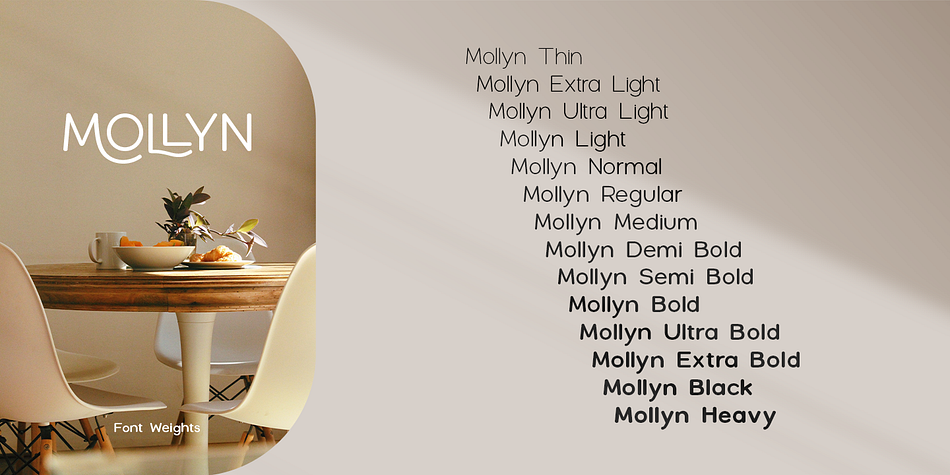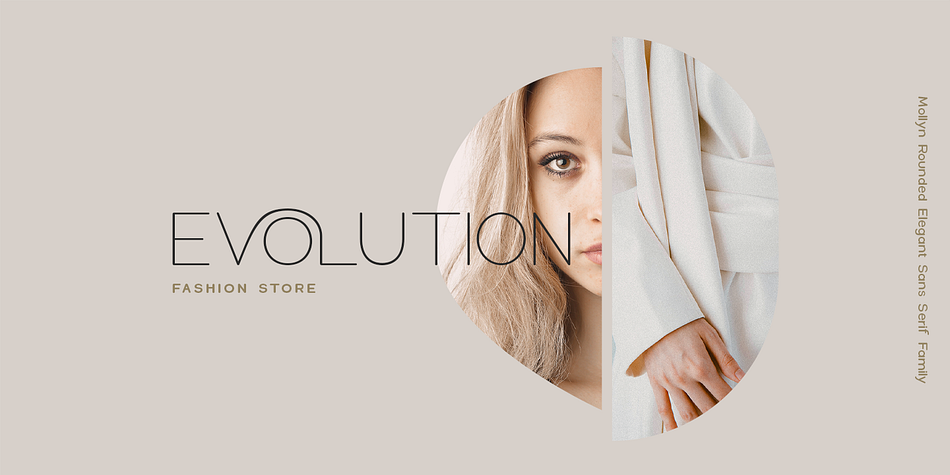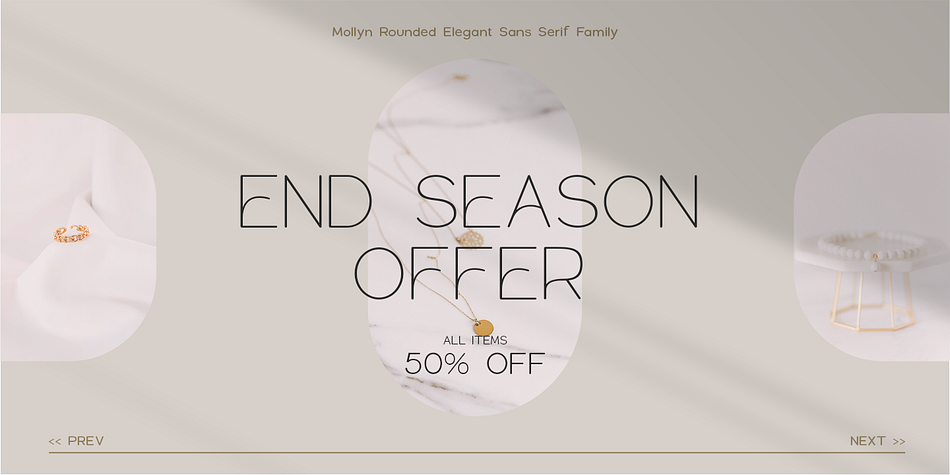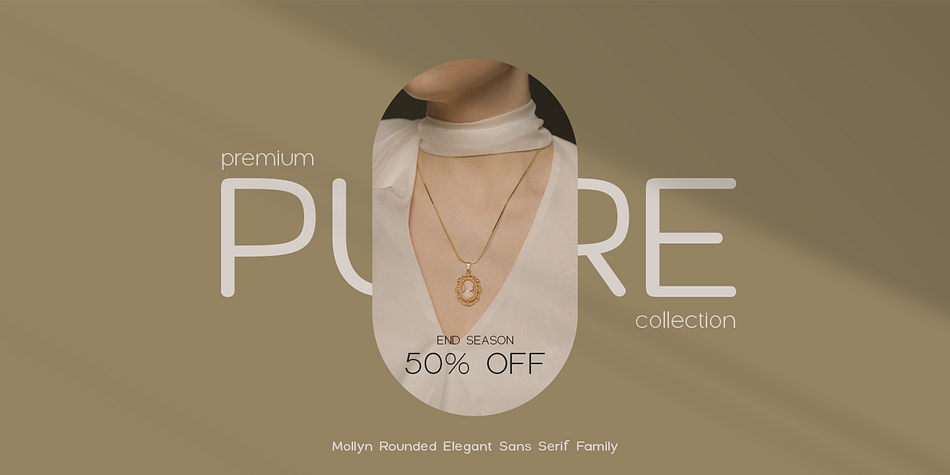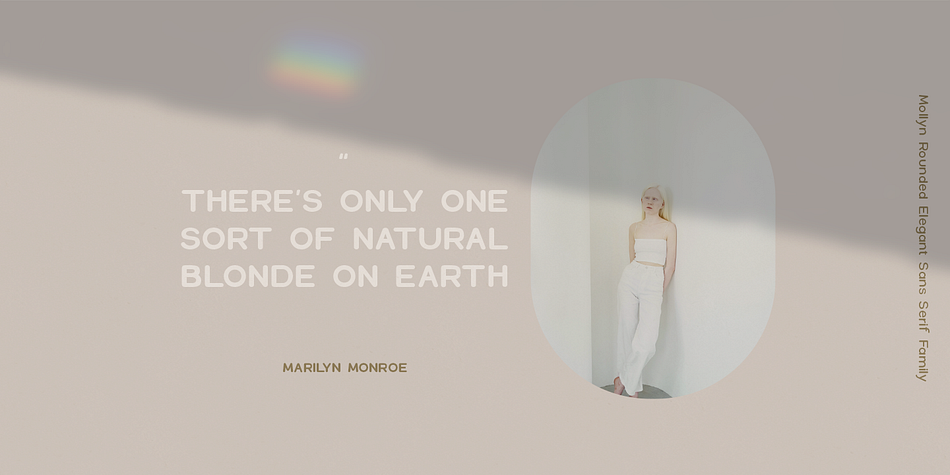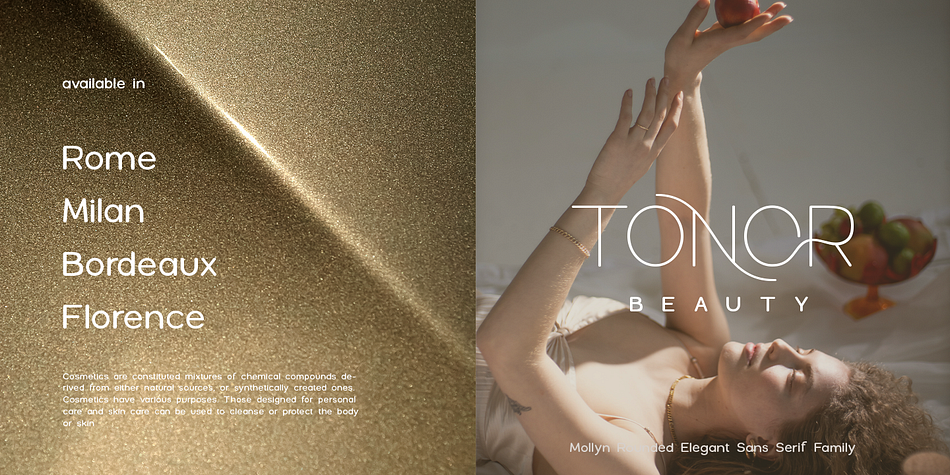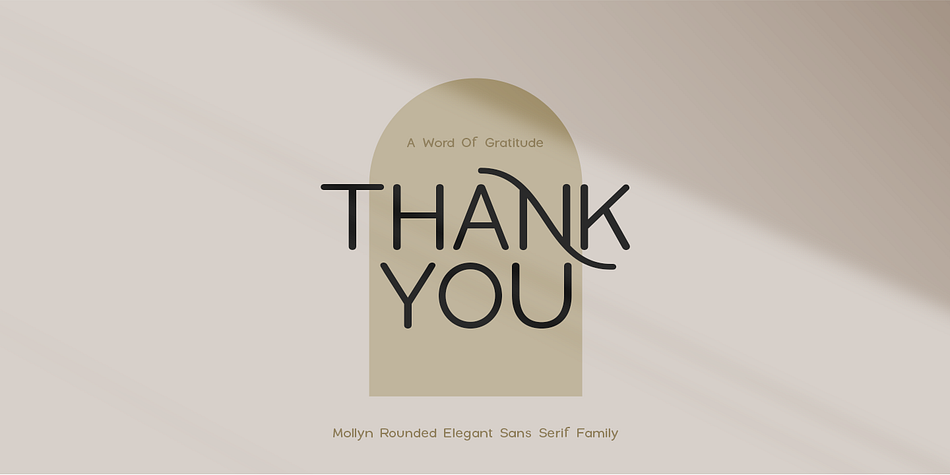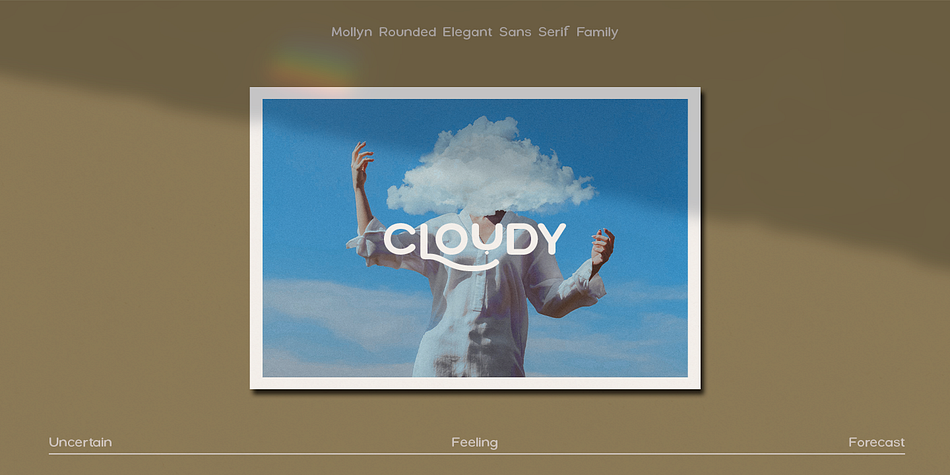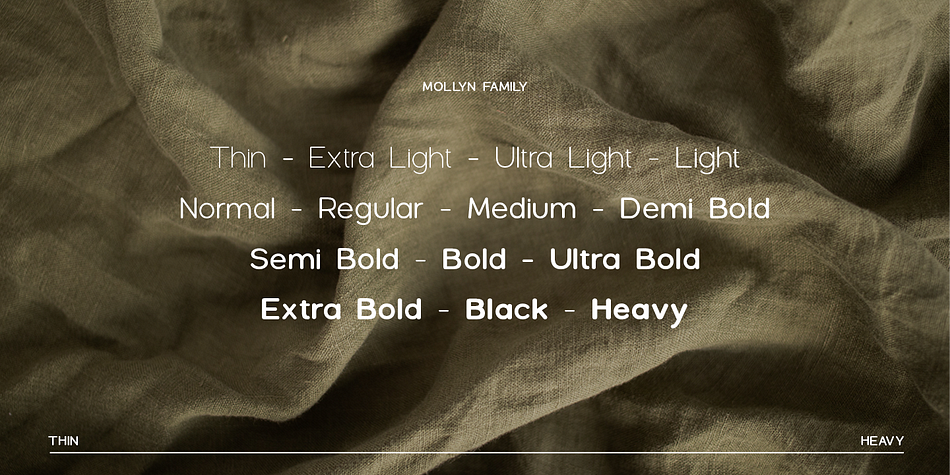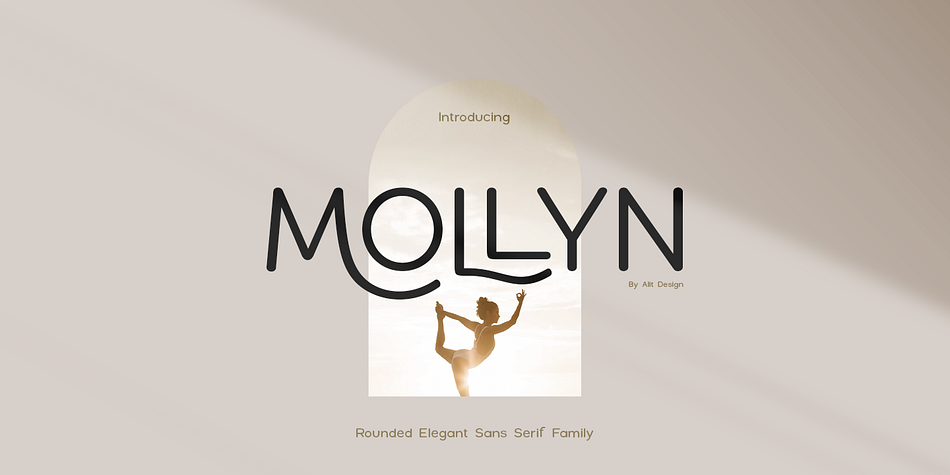
Designed by Alit Suarnegara, Mollyn is a sans serif font family. This typeface has fourteen styles and was published by Alit Design.
Introducing Mollyn Typeface
Mollyn font is designed with a modern concept that is simple and dynamic. The sans serif style adopted by the Mollyn font is a 2022 style font, has a unique swash alternative, has a large selection of ligatures. In addition.
Sans Serif typefaces such as “Mollyn typeface” are very easy to apply to any design, especially those with an elegant and smooth concept, besides that this font is very easy to use both in design and non-design programs because everything changes and glyphs are supported by Unicode (PUA).
The Mollyn typeface contains 556 glyphs with many unique and interesting alternative options. Plus, there’s a cool sans serif font family for header and description text from thin to heavy. In the poster preview all the letters are in the Mollyn typeface.